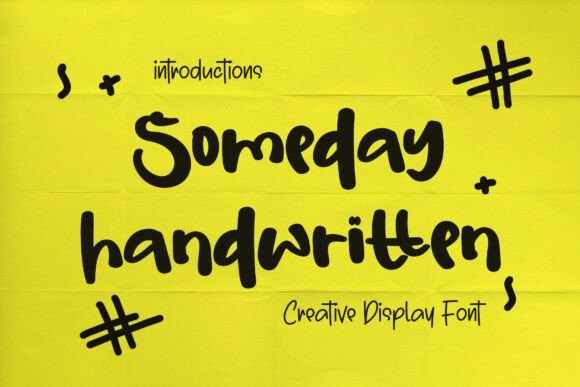
Cozy, Casual, and Confident: The Someday Handwritten Font
There's a particular feeling you get from a note scrawled on a coffee shop napkin, or a favorite quote pinned to a corkboard. It’s personal, immediate, and full of character. In the digital world, we often lose that human touch. The Someday Handwritten font is designed to bring that exact feeling back into your creative work. It’s not just a typeface; it’s a bridge between the digital and the handmade, offering a casual confidence that feels both modern and deeply relatable.
At its core, Someday Handwritten is a creative display font that mimics the natural, confident stroke of a felt-tip marker. What makes it stand out is its embrace of beautiful imperfection. The letterforms have slightly irregular heights and thick, tactile strokes, giving them a quality that feels warm and human. This isn’t the sterile, perfect lettering of a corporate logo. It’s the handwritten font equivalent of a friendly pat on the back—approachable, sincere, and full of personality. Its “journal-style” aesthetic is intimate, making viewers feel like they’re reading a personal note rather than marketing copy.
Where This Typeface Feels Most at Home
The real magic of a premium font like this is its versatility. While it’s a natural fit for personal projects, its professional weight and excellent legibility make it a powerful tool for commercial use. Think of it as your go-to for anything that needs a dose of warmth and authenticity.
For brand identity and logo design, Someday Handwritten is a dream for brands that position themselves as a “friend” to their customers. Imagine a local bakery, a boutique coffee roaster, a yoga studio, or a handmade soap company using this font. It instantly communicates approachability and care. It’s perfect for packaging design, especially DIY-style labels for artisanal goods, where a personal touch is everything. It tells customers there’s a real person behind the product.
In the digital realm, this creative font shines. It’s a standout choice for social media graphics, particularly “quote of the day” posts, Instagram stories, and YouTube thumbnails where you want to grab attention with a personal, relatable vibe. For web design, consider using it for hero section headlines or call-to-action buttons on lifestyle blogs, portfolio sites, or e-commerce stores selling cozy, curated goods. It pairs beautifully with a clean sans serif font for body text, creating a dynamic and readable visual hierarchy.
Publishers and content creators will find it invaluable for editorial design. Use it for chapter headings in a memoir-style book, for pull quotes in a magazine layout, or as the primary typeface for a digital planner. Its tactile quality also makes it a charming overlay for food photography or lifestyle images, adding a layer of handwritten commentary that feels spontaneous and genuine.
Practical Guidance for Using Someday Handwritten
Choosing the right font is about more than just liking how it looks; it’s about fit and function. Here’s how to get the most out of Someday Handwritten.
First, evaluate your project’s tone. This modern typography choice is built for comfort and storytelling. It’s ideal for projects aiming for a cozy, personal, or artisanal feel. If your brand is highly technical, formal, or ultra-luxurious, a different typeface might be more appropriate. But for anything that wants to feel human and approachable, it’s a strong contender.
Next, master font pairing. The thick, irregular strokes of Someday Handwritten make it a dominant display font. To ensure readability, pair it with a simple, clean companion. A classic serif font like Garamond or a geometric sans serif font like Montserrat for body text creates a balanced and professional look. Avoid pairing it with other highly decorative or script font styles, as they can compete for attention and reduce clarity.
Always test for readability in context. While it’s legible for titles and short blocks of text, it’s not designed for long-form reading. Use it for headlines, subheadings, quotes, and labels. Check its performance at the size you intend to use—what looks great on a large poster might lose detail on a small mobile screen. Its friendly weight holds up well, but always preview.
Finally, leverage the included assets. This commercial font is PUA-encoded, which means you have effortless access to all its glyphs, swashes, and alternate characters. This is a huge advantage for design assets. These extras allow you to customize the look, add flourishes, or create more unique letter combinations, making your work truly one-of-a-kind. Always check the licensing for your intended use—whether for a client project, merchandise, or a personal blog—to ensure you’re covered.
In a world saturated with digital noise, Someday Handwritten offers a quiet, confident alternative. It’s more than just a creative font; it’s a tool for connection. By choosing it, you’re not just selecting a style—you’re deciding to make your work feel more personal, more sincere, and more human. That’s a powerful choice for any designer, entrepreneur, or creator looking to build a genuine relationship with their audience.